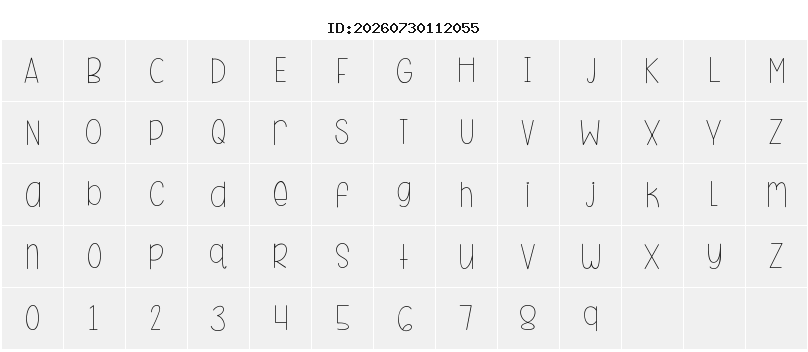
• Font Name: KG Beneath Your Beautiful
• Designer: Kimberly Geswein
KG Beneath Your Beautiful.ttf is a modern, elegant sans-serif font designed for ultimate readability and visual harmony. Perfect for branding, headlines, web design, and print materials.